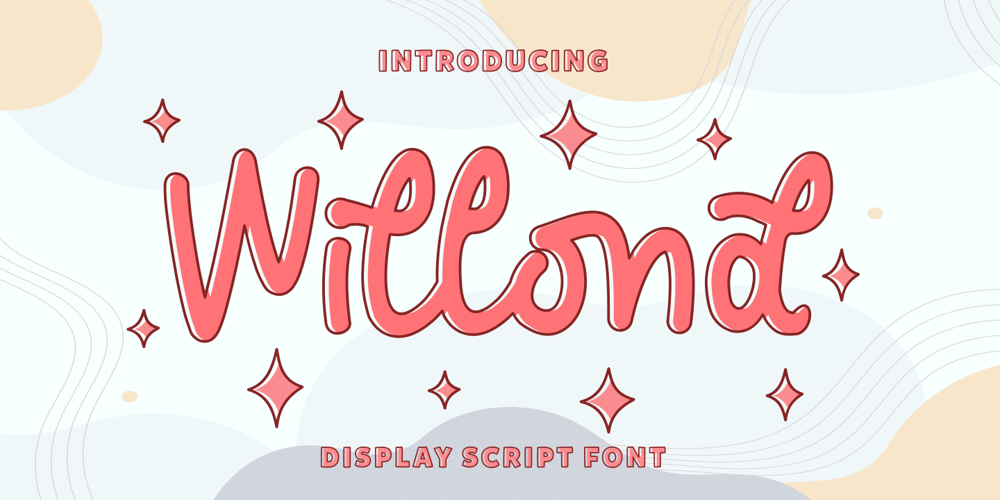
Willond Font Family was designed by Doni Purwoko and published by Zeenesia Studio. Willond contains 1 styles and family package options. Introducing Willond. new font for all of your fun projects!perfect for large design project like Tshirt, mugs, Advertising, bags, quotes, food , poster, fashion, custom sticker, magazine, and many others. It completed with numbers and punctuation. Multilingual support, alternate, ligatures and came with PUA encoded.We hope you enjoy the font, please feel free to comment if you have any thoughts or feedback. Or simply send me a PM or email me at zeenesia@gmail.com.Thanks for purchasing and have fun!